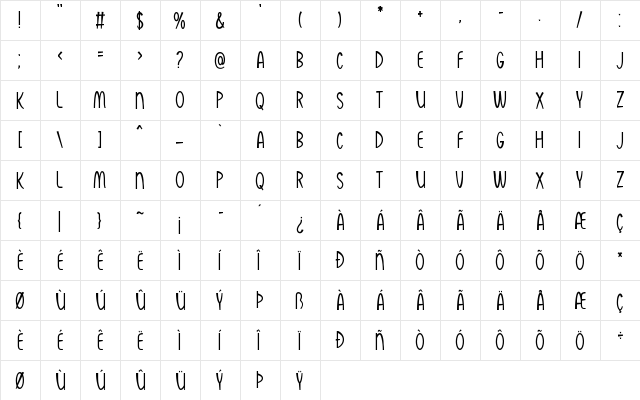
Sombir Regular
Design Context for Sombir Typeface
Sombir is a composed and adaptable typeface that performs quietly and consistently across a wide range of design contexts.